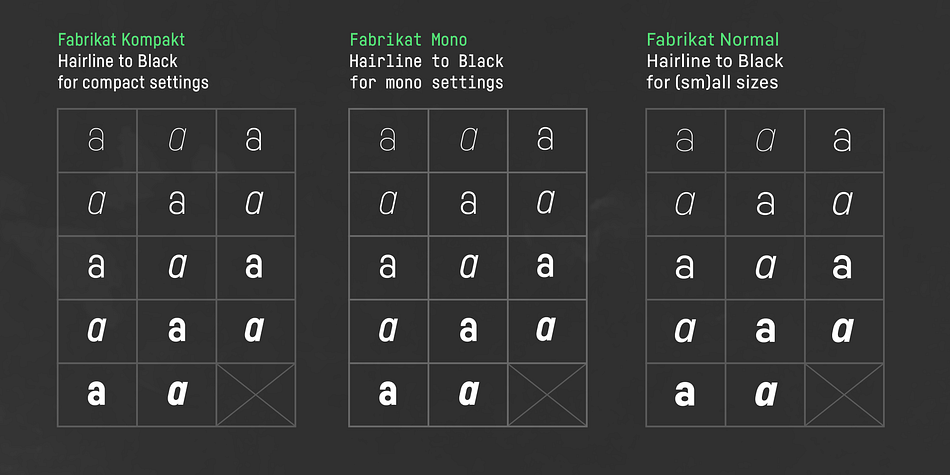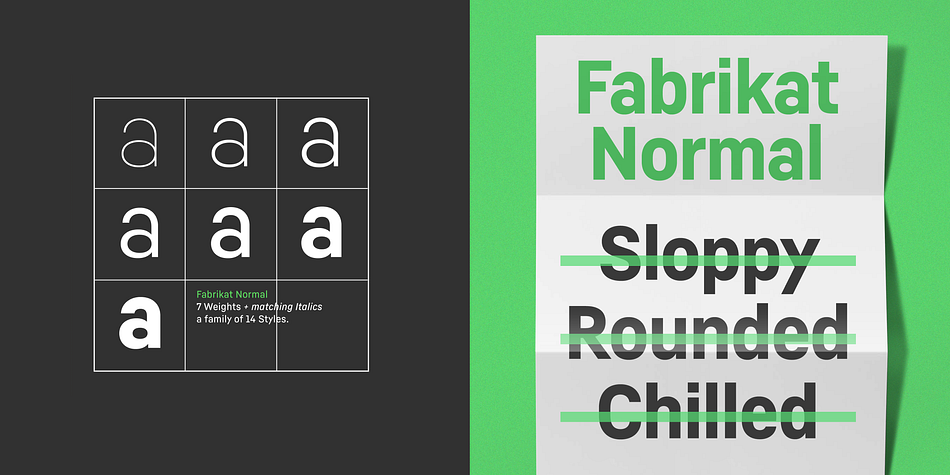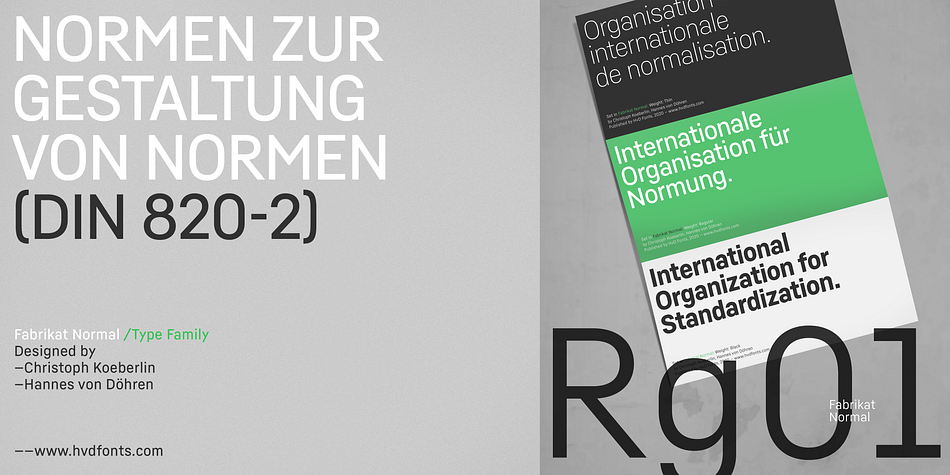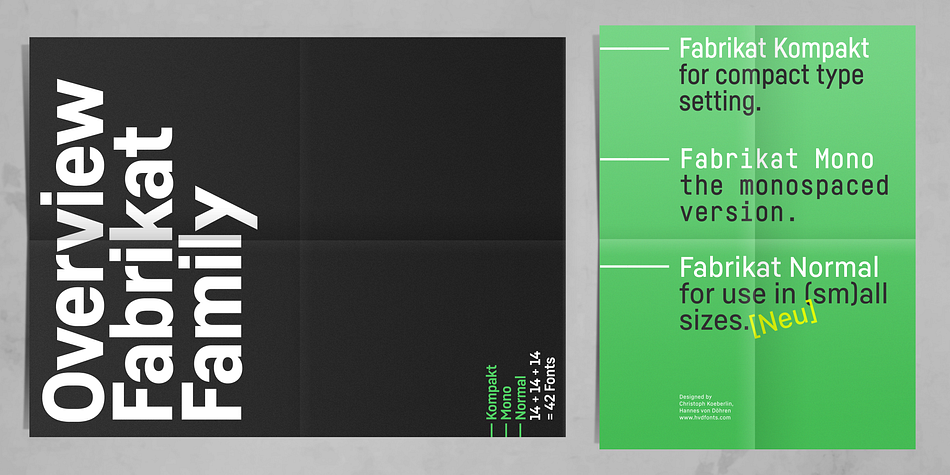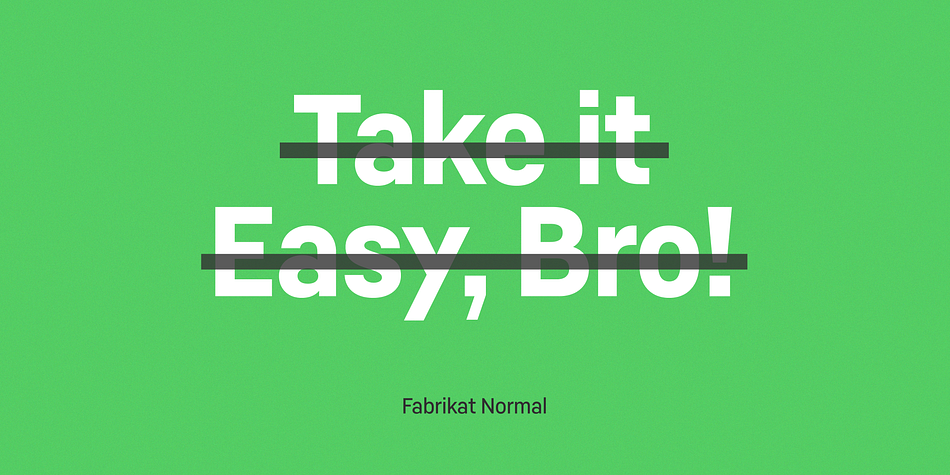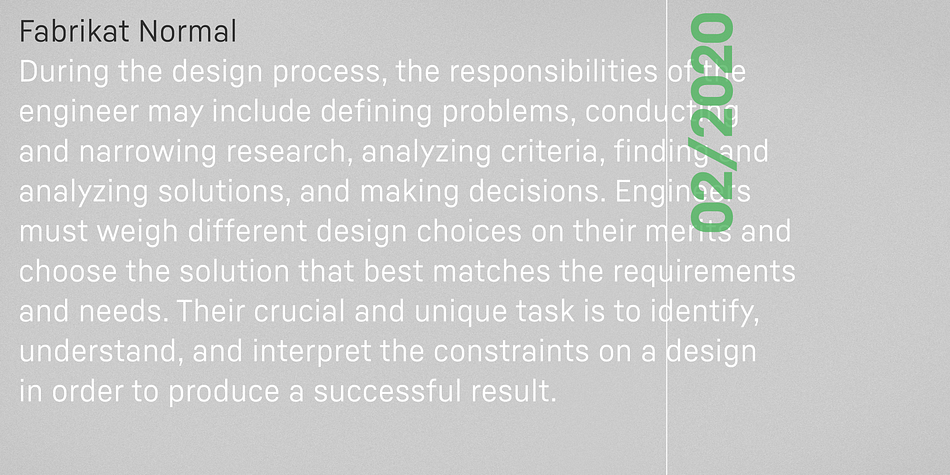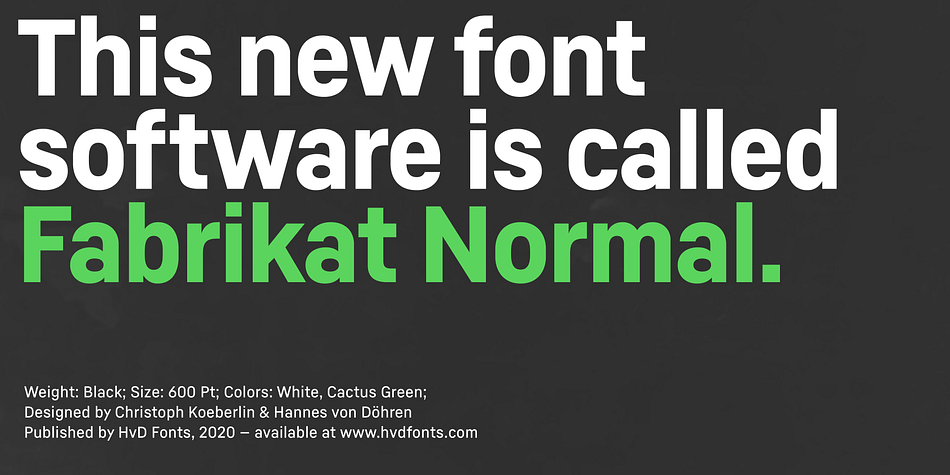
Designed by Hannes von Döhren and Christoph Koeberlin, Fabrikat Normal is an art deco and sans serif font family. This typeface has fourteen styles and was published by HVD Fonts.
Fabrikat Normal is a geometric typeface which is based on 20th century German engineers’ typefaces. It is optimised for small sizes and long texts, but due to its constructed architecture it also works in headlines or display use. You can combine Fabrikat Normal with the more straight and space saving Fabrikat Kompakt or the reduced to the max Fabrikat Mono.